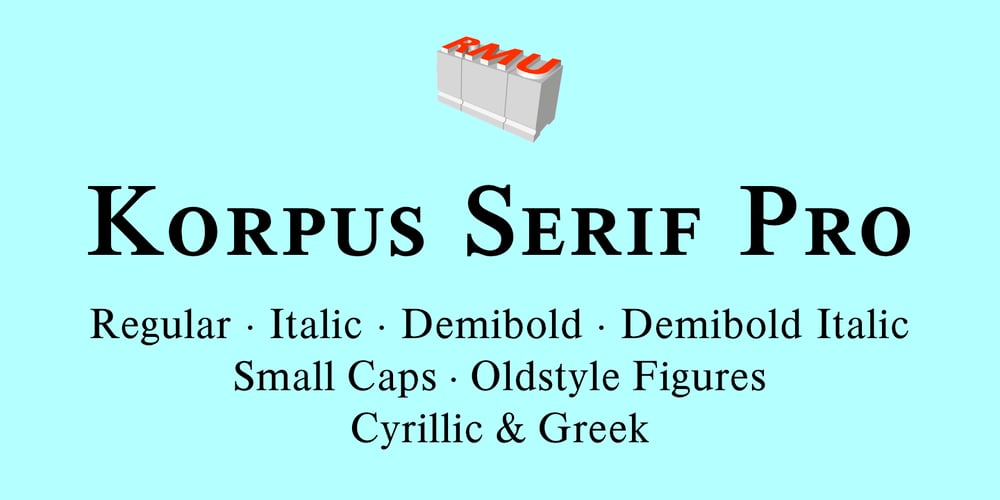
Korpus Serif Pro
Korpus Serif Pro font
Korpus Serif Pro Font Family was designed by Ralph M. Unger and published by RMU. Korpus Serif Pro contains 4 styles and family package options. Inspired by Timeless, Korpus Serif Pro is a completely fresh redesign of this former Typoart font family. All four styles – Regular, Italic, Demibold and Demibold Italic – contain besides the West and Central European glyph tables also those of Greek and Cyrillic as well as Small Caps and Oldstyle figures. All these features make this font family a highly versatile one.